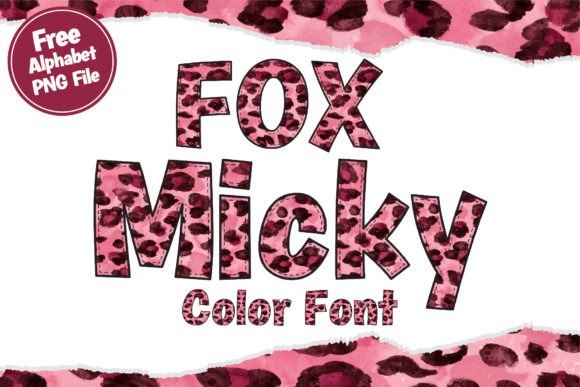
Unlock Your Creativity with Fox Micky Font
Remember the moment when you finally have an idea for a design that you just can’t wait to bring to life? The excitement is palpable, and you can’t help but feel a rush of creativity. For designers like you, every project is an opportunity to showcase your unique style and imagination. That’s why we’re thrilled to introduce Fox Micky Font, a cool and fun decorative color font that’s perfect for making your creative ideas stand out.
Fox Micky Font Key Features
- Unique Characteristics: Fox Micky Font features a unique, playful, and whimsical design with a mix of modern and vintage elements, making it perfect for creative and artistic projects.
- Font Style: The font has a bold and sans-serif style, with a x-height that is optimized for readability and a wide range of weights, from light to extra bold.
- Scalability: The font is designed to be highly scalable, making it suitable for use in various contexts, from small text to large headings and titles.
Review: Fox Micky Font
As a designer, I was intrigued by the Fox Micky Font, and I must say it has some unique characteristics that caught my attention. Here are some of the things that work well: ✨
- Creativity**: Fox Micky Font is an unconventional font that stands out from the usual sans-serif or serif fonts. It’s perfect for designers who want to add a touch of whimsy to their projects.
- Playfulness**: The font’s playful nature makes it ideal for children’s books, games, or any project that requires a fun and lighthearted tone.
- Customizability**: The font can be easily customized to fit your project’s needs, with a wide range of style options available.
However, there are also some limitations to consider: ⚠️
- Readability**: While the font is great for adding a touch of playfulness, it may not be the best choice for projects that require high readability, such as academic or technical texts.
- Consistency**: The font’s irregular shapes and inconsistent letterforms may make it challenging to use in certain contexts, such as signage or body text.
Overall, I think the Fox Micky Font is a great addition to any designer’s toolkit. While it may not be the best choice for every project, it’s perfect for designers who want to add a touch of creativity and playfulness to their work.
Tips for Getting the Most Out of Fox Micky Font
For optimal results, use Fox Micky Font in conjunction with bold or italic styles to add emphasis and visual interest.
Consider pairing Fox Micky Font with other playful or cursive fonts to create a cohesive design.
Fox Micky Font is ideal for creating playful and whimsical designs, such as:
Children’s book illustrations
Cartoon-style logos
Social media graphics
Party invitations and decorations